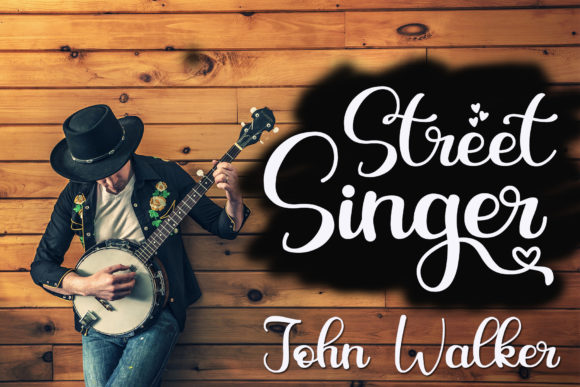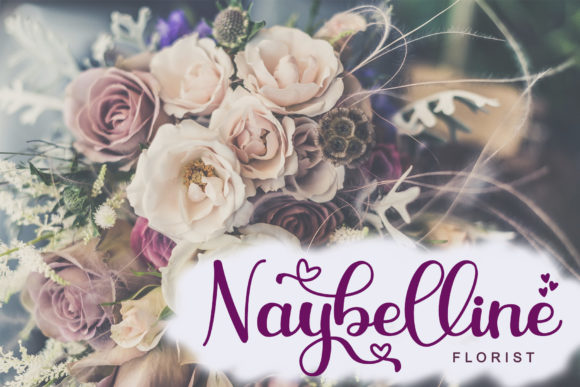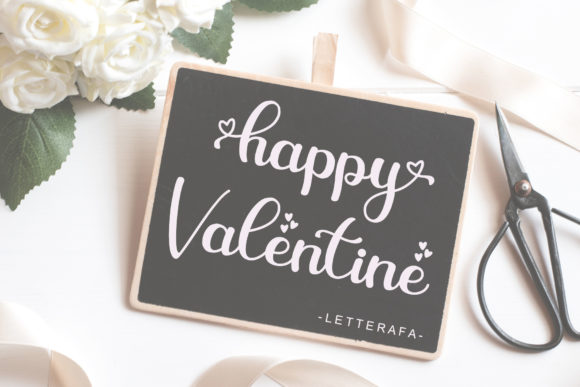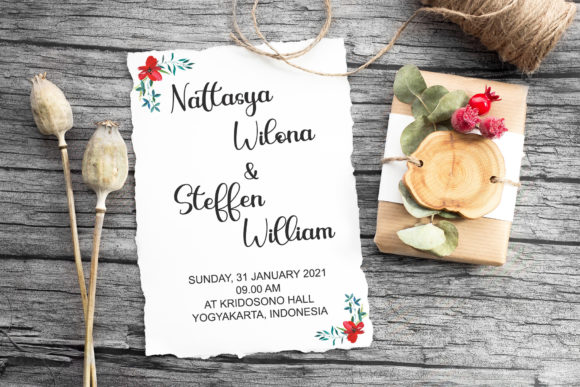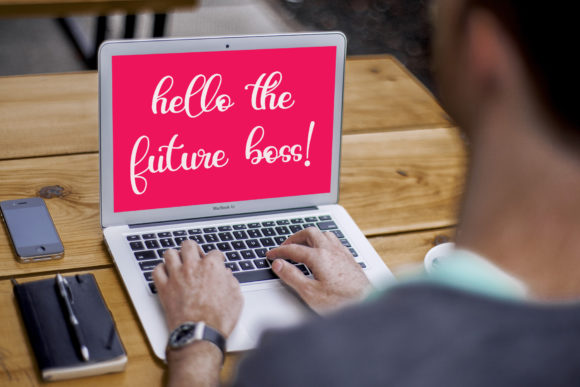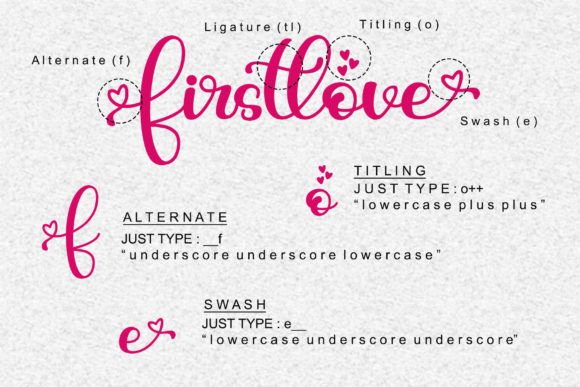
Introducing Firstlove Font: The Ultimate Romantic Calligraphy Typeface
Are you a designer or crafter looking for a font that exudes romance and elegance? Look no further than Firstlove Font, a beautiful calligraphy typeface that is sure to capture the hearts of your audience. With its flowing characters that dance along the baseline, Firstlove is the perfect choice for a variety of design projects, from logos and wedding invitations to headings, t-shirts, and more.
What Makes Firstlove Font So Special?
Firstlove Font is a romantic and graceful calligraphy typeface that is designed to add a touch of elegance to any design project. Its unique characters are carefully crafted to dance along the baseline, creating a sense of movement and fluidity that is sure to captivate your audience. Whether you’re designing a logo, wedding invitation, or social media graphic, Firstlove Font is the perfect choice for adding a touch of romance and sophistication.
Versatile and Multi-Purpose
One of the best things about Firstlove Font is its versatility. It can be used for a wide range of design projects, including:
- Logos: Create a beautiful and elegant logo for your business or brand with Firstlove Font.
- Wedding Invitations: Make your wedding invitations truly special with Firstlove Font, perfect for formal and informal wedding designs.
- Headings: Add a touch of elegance to your headings and titles with Firstlove Font.
- T-Shirts: Create stunning t-shirt designs with Firstlove Font, perfect for fashion brands and more.
- Letterhead: Elevate your letterhead and stationery with Firstlove Font.
- Signage: Create eye-catching signage with Firstlove Font, perfect for businesses and events.
- Labels: Design beautiful labels with Firstlove Font, great for products and packaging.
- News and Posters: Add a touch of elegance to your news articles and posters with Firstlove Font.
- Badges: Create stunning badges with Firstlove Font, perfect for events and awards.
Firstlove Font is PUA (Private Use Area) encoded, which means that you can access all of the glyphs and swashes with ease. This makes it easy to customize your designs and add unique touches to your projects. With Firstlove Font, you can easily access a range of alternative characters, swashes, and ligatures to take your designs to the next level.
Why Choose Firstlove Font?
There are many reasons why Firstlove Font is the perfect choice for designers and crafters. Here are just a few:
- Unique and elegant design: Firstlove Font is a truly unique and elegant typeface that will set your designs apart.
- Versatile: Firstlove Font can be used for a wide range of design projects, from logos and wedding invitations to headings and t-shirts.
- High-quality: Firstlove Font is a high-quality typeface that is designed to deliver stunning results.
If you’re looking for a romantic and elegant calligraphy typeface that is perfect for a wide range of design projects, look no further than Firstlove Font. With its unique characters, versatility, and PUA encoding, Firstlove Font is the ultimate choice for designers and crafters. Whether you’re designing a logo, wedding invitation, or social media graphic, Firstlove Font is sure to add a touch of romance and sophistication to your designs.